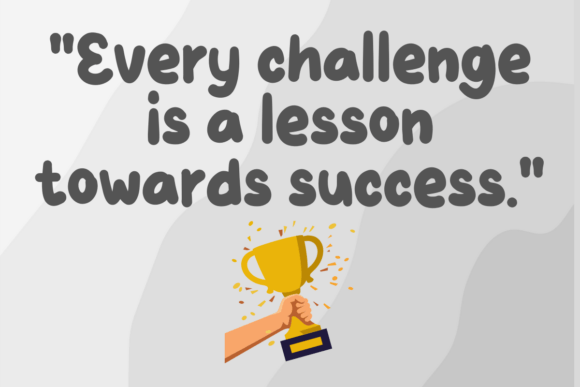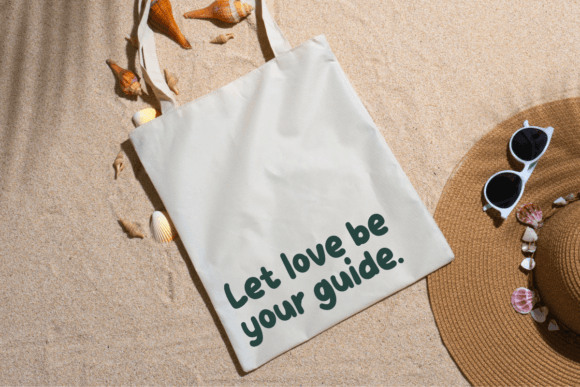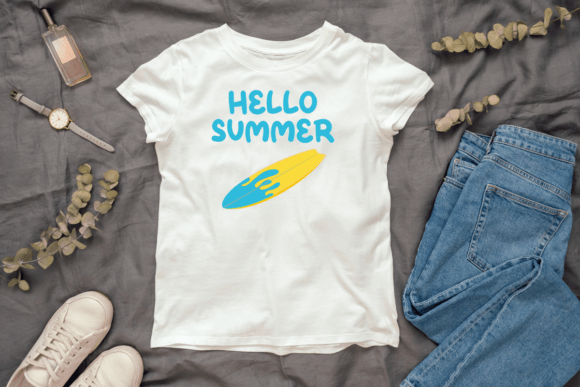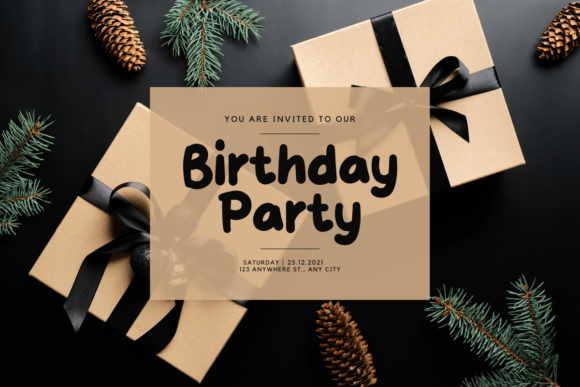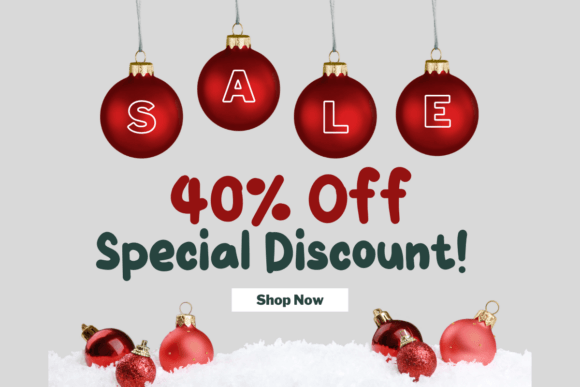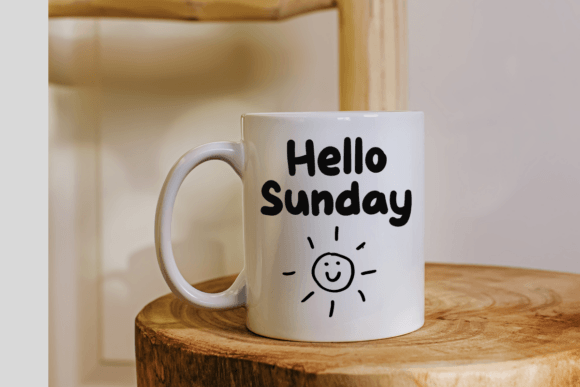
The Bread Dough Font: A Simple yet Powerful Tool for Creative Projects
I’ll never forget the design moment when I stumbled upon the Bread Dough font. I was working on a digital planner project, and I was struggling to find the perfect font that would complement my design. My client wanted something simple, yet elegant, and I was on a tight deadline. As I scrolled through my font library, I came across Bread Dough, and it was love at first sight. Its classic and simple design made it perfect for digital note-taking, and its versatility made it ideal for various projects.
What I Love About Bread Dough Font
- ✨ Simple and classic design that’s perfect for digital note-taking
- ✅ Highly versatile and can be used for various projects, such as Procreate designs, blog posts, logos, branding, digital planners, invitations, greeting cards, and photo albums
- 💡 Easy to read, even at small font sizes
- 🎨 Works well with both digital and print designs
While I absolutely love the Bread Dough font, there are a few quirks to be aware of:
- 🤔 Limited OpenType features, which might be a drawback for some designers
- ⚠️ Not suitable for body text in long documents, as it can be a bit too ornate
The Backstory Behind Bread Dough Font
The Bread Dough font was designed by a talented typographer who wanted to create a simple, yet elegant font that would evoke the feeling of homemade bread. The designer’s inspiration came from traditional bread-making techniques and the rustic charm of handwritten recipes. The result is a font that’s both classic and approachable, perfect for a wide range of creative projects.
| What is the Bread Dough font best used for? | The Bread Dough font is perfect for digital note-taking, Procreate designs, blog posts, logos, branding, digital planners, invitations, greeting cards, and photo albums. |
| Is the Bread Dough font suitable for body text? | While the Bread Dough font is easy to read, it’s not ideal for long-form content. It’s best used for headings, titles, and short paragraphs. |
| Is the Bread Dough font available in different styles? | The Bread Dough font comes in a single style, but it’s highly versatile and can be used in various contexts. You can also experiment with font sizes, colors, and effects to create different visual effects. |